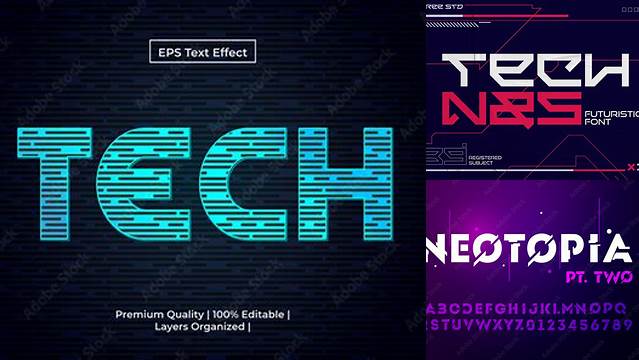
Techno Fonts On Adobe: Style Your Designs
Exploring the Futuristic Appeal of Techno Fonts
Hey design enthusiasts! Let's dive deep into the electrifying world of techno fonts and how you can harness their futuristic power, especially when working with Adobe products. Techno fonts, guys, are all about evoking a sense of the future, advanced technology, and sometimes even a dystopian or utopian vibe. Think sleek lines, geometric shapes, sharp angles, and a general departure from traditional, organic forms. They're the go-to choice when you want your designs to scream innovation, cutting-edge tech, or a bold, forward-thinking aesthetic. Whether you're designing a logo for a tech startup, a poster for a sci-fi event, or a website for a futuristic product, techno fonts bring that essential element of 'wow' factor. They can be incredibly versatile, ranging from the minimalist and clean to the complex and highly stylized. The key is understanding their inherent characteristics and how they can amplify your message. Adobe, with its powerhouse suite of creative tools like Illustrator, Photoshop, and InDesign, provides an amazing playground for exploring and implementing these fonts. We'll be chatting about how to find them, use them effectively, and make them work for your specific design needs. So buckle up, because we're about to get futuristic with typography!
Why Choose Techno Fonts for Your Adobe Projects?
So, why should you, my fellow creatives, consider techno fonts for your next Adobe masterpiece? Well, the answer is pretty straightforward: impact. These fonts are designed to make a statement. They're not your everyday Times New Roman; they're built to grab attention and convey a specific mood or message. When you're working in Adobe Illustrator, for instance, and you want a logo that screams 'innovation' or 'speed,' a well-chosen techno font can do that instantly. They excel at communicating concepts related to technology, science fiction, gaming, and anything that pushes the boundaries of what's current. Using a techno font in Photoshop for a poster can transform a mundane design into something that feels alive and dynamic, drawing viewers in with its unique character. They possess a distinct personality that can elevate a project from good to absolutely unforgettable. Imagine a corporate brochure for a cybersecurity firm; a sharp, clean techno font instantly communicates security, precision, and advanced systems. Or perhaps a music album cover for an electronic artist; a more experimental, angular techno font can perfectly capture the genre's essence. The visual language of techno fonts is powerful and direct, making them an invaluable tool in your Adobe design arsenal. They offer a way to visually represent abstract concepts like progress, data, and digital landscapes, making them incredibly effective for specific branding and communication goals. It's all about aligning the font's inherent style with the message you're trying to send to your audience.
Discovering Techno Fonts within the Adobe Ecosystem
Alright, let's get practical, guys. How do you actually find these awesome techno fonts when you're knee-deep in Adobe Creative Cloud? Adobe Fonts (formerly Typekit) is your absolute best friend here. It's integrated directly into Photoshop, Illustrator, InDesign, and other Adobe apps, making the process super smooth. When you open the Character panel in any Adobe application, you'll see the option to browse fonts. You can search directly for terms like 'techno,' 'futuristic,' 'sci-fi,' 'geometric,' or 'display' fonts. Adobe Fonts offers a massive library, and many incredible techno styles are available right at your fingertips, often included with your Creative Cloud subscription. Beyond Adobe Fonts, you can also explore third-party font marketplaces like MyFonts, Fontspring, or even free font sites like Google Fonts or DaFont. Just be mindful of licensing, especially for commercial projects. When you find a font you like from an external source, you'll download it and then install it on your system. Most Adobe applications will automatically recognize system-installed fonts. The key is to experiment! Don't be afraid to try out different styles and see what resonates with your project. Look for fonts with sharp edges, clean lines, condensed or extended forms, and unique character sets. The Adobe ecosystem makes it remarkably easy to preview fonts in your designs before committing, so take full advantage of that feature. Itβs all about finding that perfect typographic match that elevates your creative vision within the powerful tools Adobe provides.
Mastering Geometric Techno Fonts in Illustrator
Let's zero in on a popular sub-genre: geometric techno fonts. These are the ones that rely heavily on basic shapes like circles, squares, and triangles, often with clean, precise lines and a very structured feel. When you're using Adobe Illustrator, these fonts are a dream to work with because they often have a strong mathematical foundation, which complements Illustrator's vector-based nature. Think of fonts that look like they were constructed with a ruler and compass, but with a futuristic twist. They're fantastic for logos, headings, and any design element where clarity and a modern, almost architectural feel are desired. For instance, if you're designing branding for a software company or a data visualization project, geometric techno fonts convey reliability, precision, and advanced computation. In Illustrator, you can easily manipulate these fonts. You can convert text to outlines (Type > Create Outlines) to have complete control over individual letterforms, allowing you to tweak shapes, add custom elements, or even combine parts of different letters. This is where the magic happens, guys! You can take a standard geometric techno font and make it uniquely yours, adding sharp serifs, extending strokes, or creating entirely new glyphs. This level of customization is precisely why Illustrator is the go-to tool for advanced typography. Experiment with tracking and kerning to ensure perfect spacing, especially with these often-condensed or extended letterforms. The clean, structured nature of geometric techno fonts makes them highly legible even at small sizes, but their true power shines when they become a distinct visual element in your broader design.
Creating Futuristic Interfaces with Display Techno Fonts in Photoshop
Now, let's shift gears to display techno fonts, particularly how they shine in Adobe Photoshop for creating futuristic interfaces and eye-catching graphics. Display fonts, by definition, are meant to be used in larger sizes, for headlines, titles, or short bursts of text where their unique personality can really take center stage. When we talk about display techno fonts, we're often looking at styles that are more experimental, maybe a bit more complex, or have very distinct stylistic features like unconventional curves, sharp accents, or even glitchy effects. Photoshop is the perfect canvas for these. Imagine designing a website landing page for a new gadget, a game interface, or a promotional banner for a tech conference. A bold display techno font can instantly set the tone. In Photoshop, you can apply layer styles like glows, shadows, bevels, and textures to these fonts, really pushing their futuristic feel. You can create stunning typographic treatments by combining multiple font styles or by manipulating the letters themselves using Photoshop's powerful selection and transformation tools. For example, you could take a display techno font and apply a metallic gradient, add a neon glow, or even introduce a digital glitch effect to make it look like it's breaking down or transmitting data. This level of visual manipulation is what Photoshop excels at. Remember, guys, the goal with display techno fonts is to create a strong visual impact. They should be exciting, memorable, and perfectly aligned with the overall futuristic aesthetic you're aiming for. Don't be afraid to go bold and experimental; that's what these fonts are made for!
Leveraging Adobe InDesign for Techno Font Typographic Hierarchy
When it comes to laying out longer documents, like brochures, magazines, or e-books, and you need to incorporate techno fonts while maintaining clear communication, Adobe InDesign is your ultimate ally. The challenge with many techno fonts, especially the more stylized display ones, is ensuring they work harmoniously within a larger typographic system. In InDesign, the focus shifts to establishing a strong typographic hierarchy. This means deciding which text elements should grab the reader's attention first (like headlines or subheadings) and which should be easily readable for extended periods (body text). For headlines and subheadings, a striking techno font can be incredibly effective. It immediately signals the topic and sets a modern, tech-oriented tone. However, for body text, it's generally advisable to opt for a more legible, perhaps sans-serif font that complements the techno headline. InDesign's paragraph and character styles are indispensable here. You can define a specific techno font for your headings and a clean, readable font for your body copy, and then apply these styles consistently throughout your document. This not only ensures a professional look but also makes the editing process a breeze. You can easily change the font family, size, or color of all headlines at once by simply modifying the heading paragraph style. Furthermore, InDesign offers precise control over leading (line spacing), kerning (space between specific letter pairs), and tracking (overall letter spacing), which are crucial for optimizing the readability of both techno display fonts and body text. Mastering these tools allows you to create sophisticated layouts where techno fonts add a distinct flair without compromising the reader's experience. It's about striking that perfect balance between style and substance, guys.
Balancing Readability and Style with Techno Fonts
Finding the sweet spot between making your text look cool and ensuring people can actually read it is a crucial skill when working with techno fonts, especially in Adobe applications. Techno fonts, by their very nature, can sometimes be quite stylized, featuring sharp angles, unconventional letterforms, or condensed spacing that might pose challenges for legibility, particularly in longer blocks of text. The trick, guys, is strategic application. For headlines, subheadings, or short, punchy taglines, a bold, highly stylized techno font can be absolutely perfect. It grabs attention and immediately conveys a sense of modernity and technological prowess. Think of using a sharp, angular techno font for the title of a sci-fi movie poster or a sleek, minimalist one for a startup's main slogan. However, when it comes to body copy β the paragraphs people actually need to read β it's often best to play it safe. Opt for a clean, highly legible sans-serif font that complements your techno headline. This could be a classic like Helvetica Neue, Open Sans, or even a geometric sans-serif that shares some characteristics with your display font but prioritizes readability. In Adobe InDesign or Illustrator, you can use the tracking and kerning controls to slightly adjust spacing if needed, especially with condensed techno fonts. Sometimes, simply increasing the leading (line spacing) can significantly improve readability. The goal is to use the techno font as a powerful accent β a way to inject personality and theme β without making your readers work too hard to understand your message. It's about creating a visual hierarchy where the stylistic elements draw people in, and the readable elements keep them engaged.
Integrating Techno Fonts with Adobe's Color Palettes
Typography and color are like best buds in design, and when you're working with techno fonts in Adobe tools, getting this relationship right is key to creating a cohesive and impactful look. Techno fonts often lean towards a futuristic, digital, or even industrial aesthetic, so the colors you pair them with should echo that vibe. Think about the common color associations with technology: cool blues, electric cyans, sharp silvers, deep blacks, stark whites, and vibrant neons. Adobe's tools, like Adobe Color (formerly Kuler), are fantastic for exploring and creating harmonious color palettes. You can generate palettes based on color rules (complementary, analogous, triadic) or even extract themes from images. When using a techno font, consider its primary characteristics. Is it sleek and minimalist? Pair it with a clean, monochromatic palette or a single accent color. Is it bold and energetic? Maybe a high-contrast palette with neon accents would work wonders. In Photoshop or Illustrator, you can easily apply these color schemes using the Swatches panel or the Color Picker. For example, a white or light grey techno font on a dark, almost black background immediately screams 'tech.' Or, a vibrant neon techno font overlaid on a textured metallic background in Photoshop can create a really dynamic, cyberpunk feel. Remember to consider the context of your design. A corporate tech brand might need a more restrained, sophisticated palette, while a gaming event could embrace much bolder, saturated colors. The synergy between your chosen techno font and your color palette is what truly brings your futuristic vision to life within the Adobe environment, guys.
Exploring Free Techno Fonts Compatible with Adobe
Hey, budget-conscious designers! Don't have a Creative Cloud subscription or need some quick, free options? No worries, guys! You can absolutely find awesome techno fonts that work seamlessly with Adobe products without breaking the bank. Google Fonts is a fantastic resource. While it might not have as many overtly 'techno' styles as paid libraries, you can discover geometric sans-serifs, minimalist designs, and even some futuristic-looking options that fit the bill. Just search for terms like 'sans-serif,' 'geometric,' 'modern,' or 'mono' (monospaced fonts often have a techy feel). DaFont and Font Squirrel are other popular spots. On DaFont, you can browse through categories like 'Sci-Fi' or 'Techno,' but always check the license carefully β many are free for personal use only. Font Squirrel often curates high-quality free fonts with commercial-use licenses. Once you download a font (usually in .ttf or .otf format), installing it on your system is straightforward. On Windows, right-click the font file and select 'Install.' On a Mac, double-click the font file and click 'Install Font.' After installation, these fonts should automatically appear in the font dropdown menus within Adobe Illustrator, Photoshop, InDesign, and other applications. It's crucial to verify the licensing, though, especially if you plan to use the font for commercial projects. Stick to reputable sites and read the fine print. Finding great free techno fonts is totally doable and can add that futuristic edge to your Adobe designs without the cost.
The Evolution of Techno Typography
It's fascinating to look back and see how techno fonts have evolved over time, guys. The roots often trace back to early modernist and constructivist movements, with their emphasis on geometric forms and functional design. As technology advanced, so did typography. The digital revolution in the late 20th century and the rise of computers brought about entirely new possibilities. Early digital interfaces and futuristic movie posters of the 80s and 90s heavily featured fonts that we now classify as techno β often characterized by sharp angles, digital-looking elements, and a departure from organic curves. Think of the classic 'Tron' aesthetic. With the advent of desktop publishing and powerful software like Adobe Illustrator and Photoshop, designers gained unprecedented control. They could create increasingly complex and stylized techno fonts, pushing the boundaries of what was possible. We've seen trends move from purely geometric and clean to more complex, distorted, or even